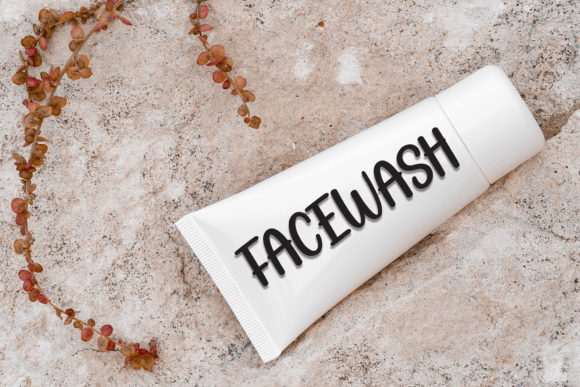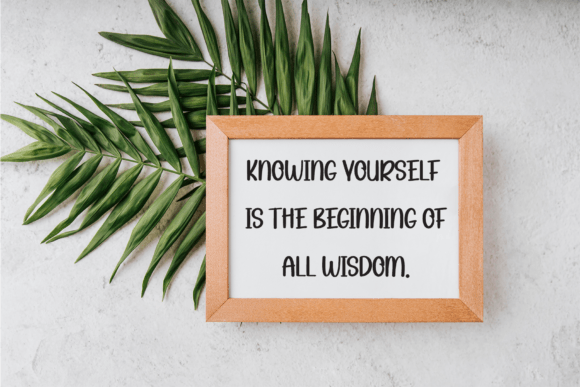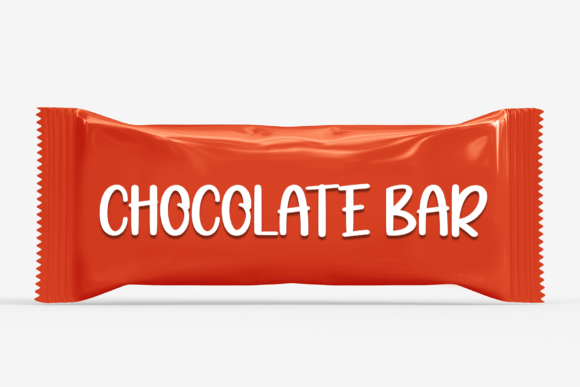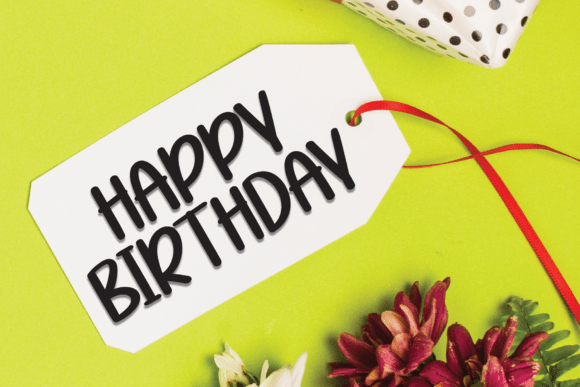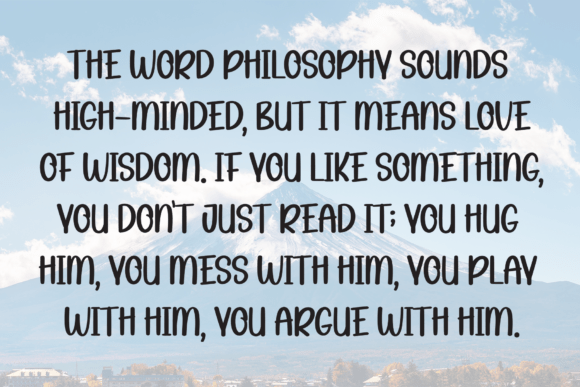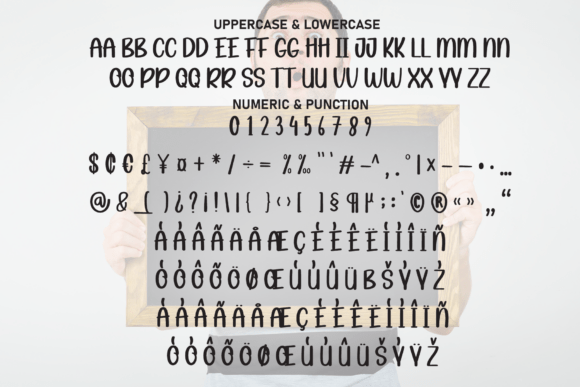
Introduction to Chubby Blackboard Font
Introducing the charm of our unique handwritten display font, where every stroke blends sweetness and friendliness.
Exuding a sense of fun, this font is a delightful match for crafting wedding invitations, cards, or any design concept craving for an entertaining touch Its playful design surely adds an engaging and memorable impression on any creative masterpiece.
Key Features of Chubby Blackboard Font
Why Choose Chubby Blackboard Font?